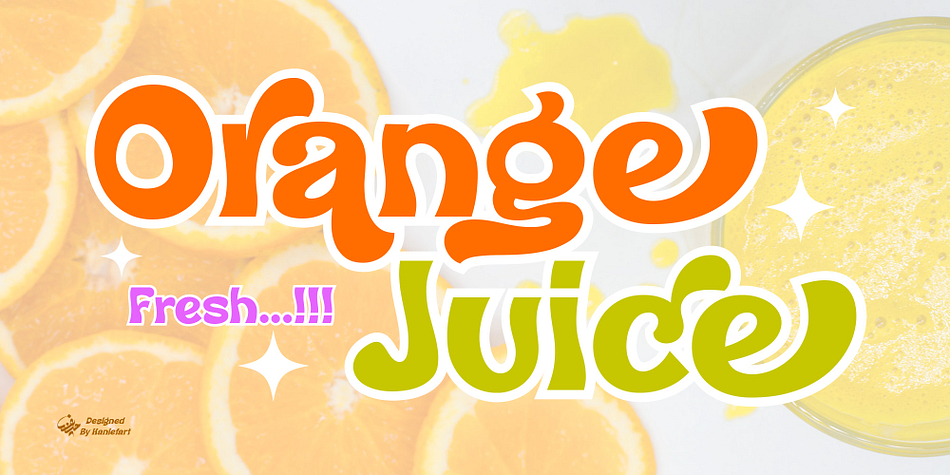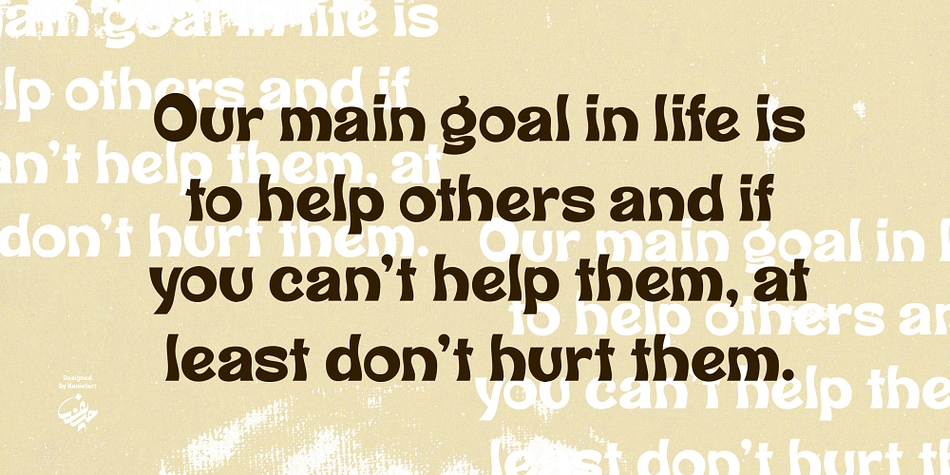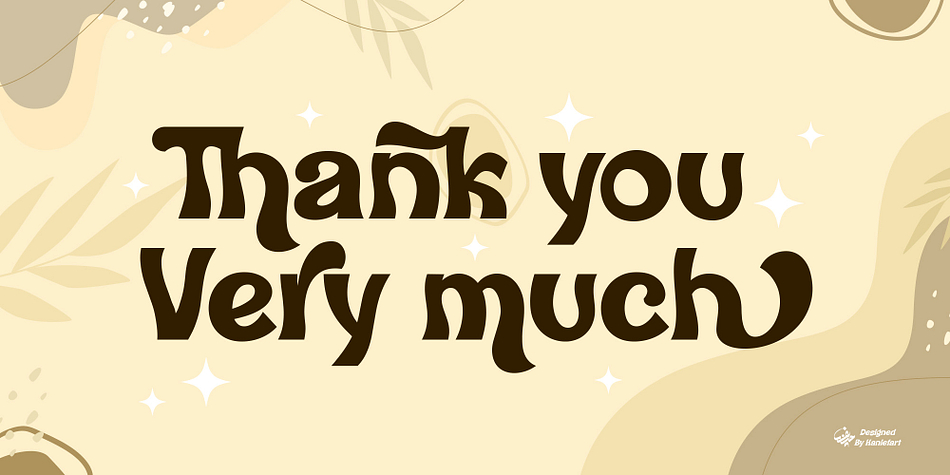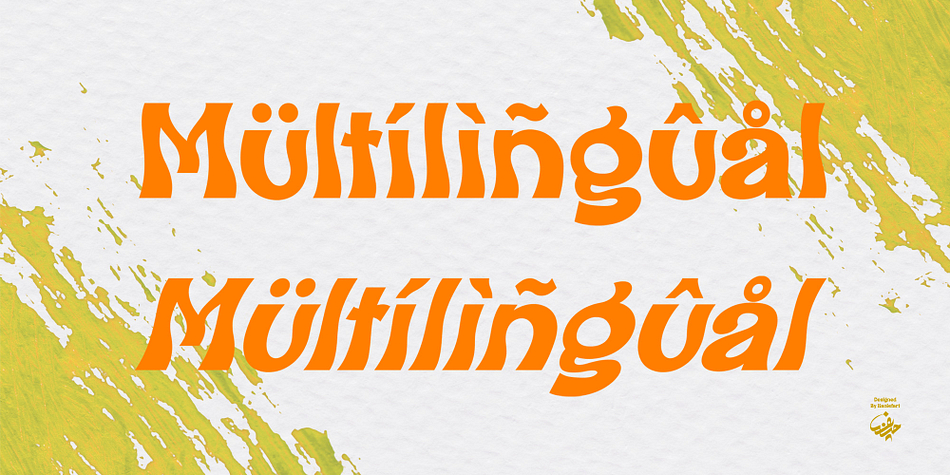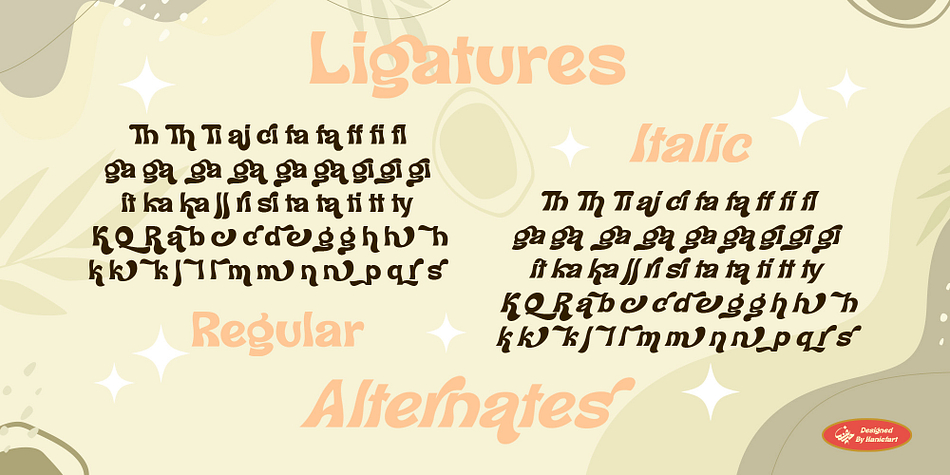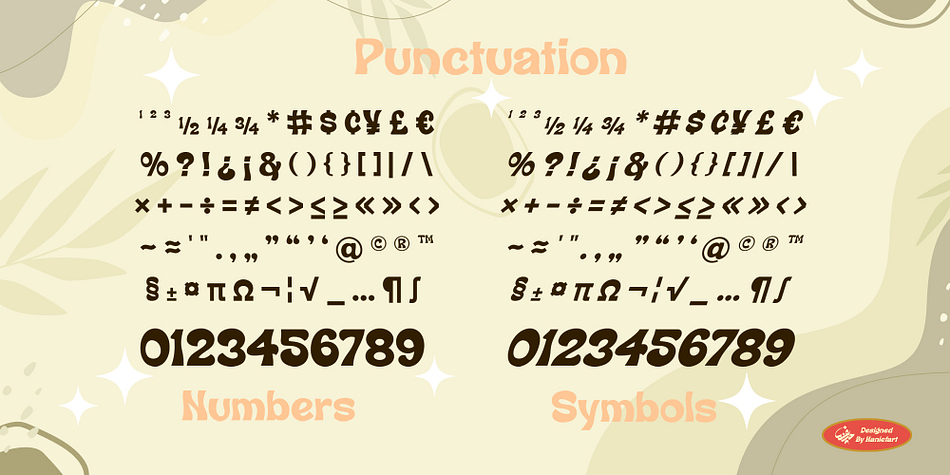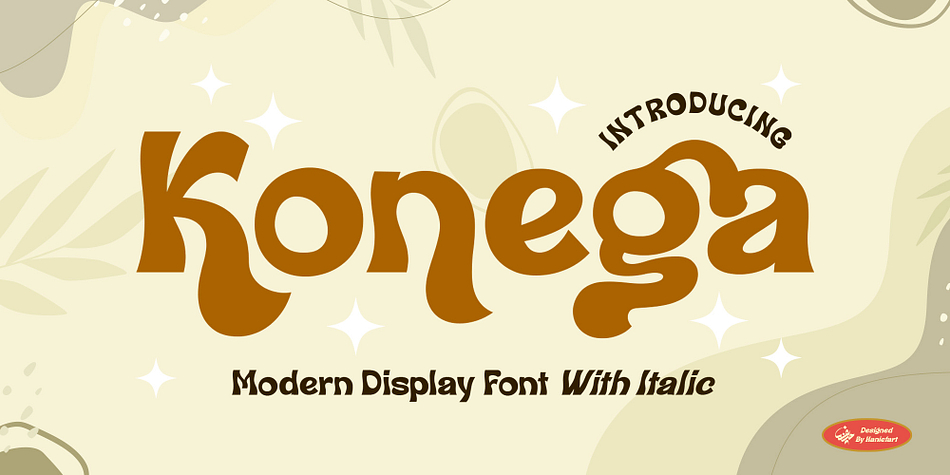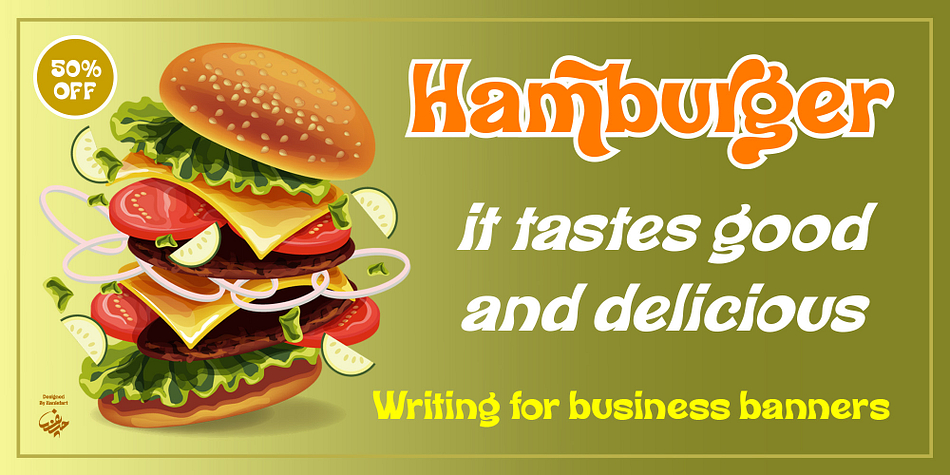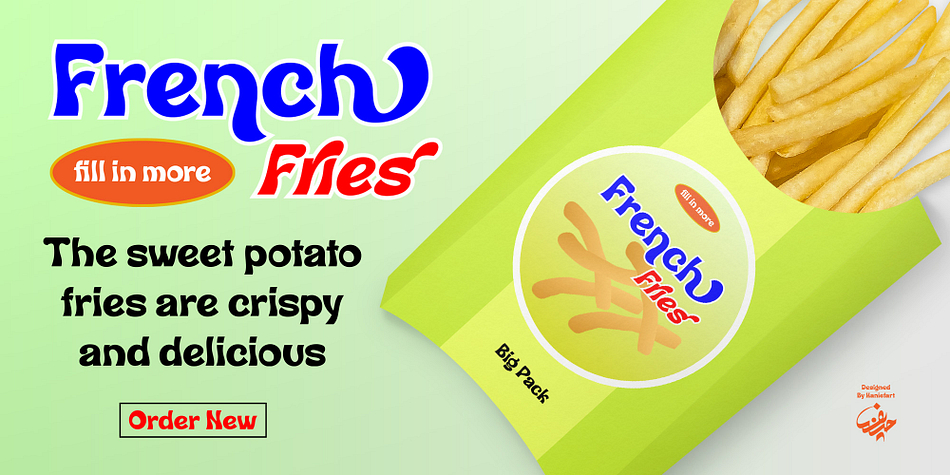
Konega
Designed by Hanif Maulazi, Konega is a retro font family. This typeface has two styles and was published by Haniefart.
Konega is a handmade typeface with a unique and modern style, comes in two versions, namely regular and italic, and is available in uppercase, lowercase, ligature and alternate. Konega is suitable for business brands, magazines, comics, t-shirts, banners and many others.
Foundry Haniefart
Designer Hanif Maulazi